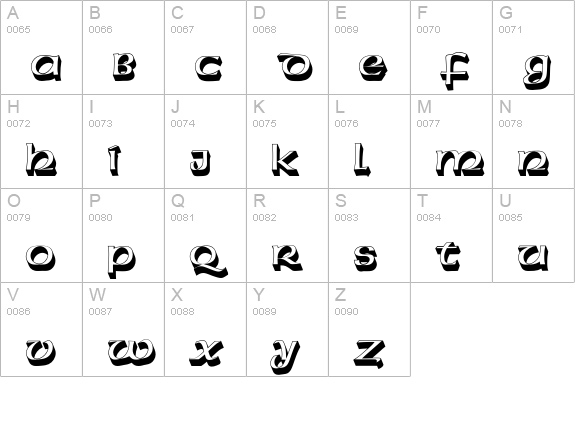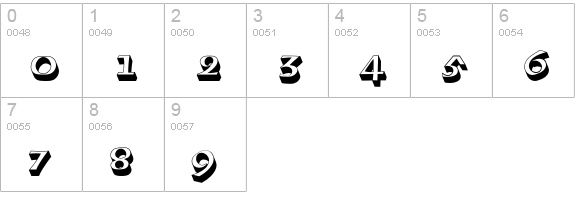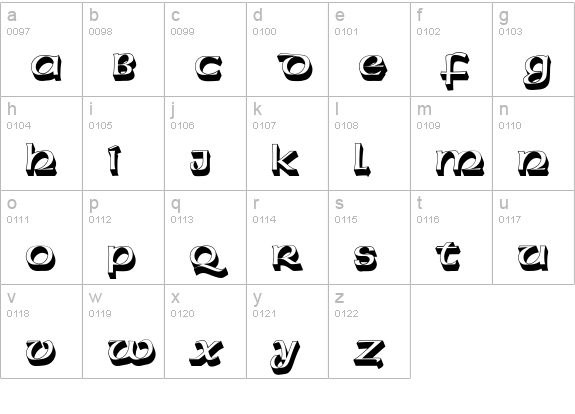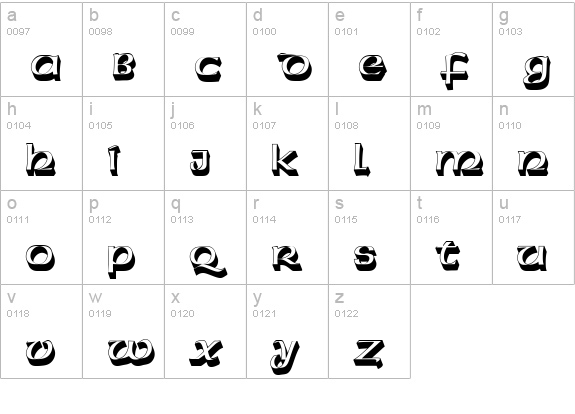
American Uncial D Sh1 Font Details
American Uncial D Sh1 font is a classic and elegant typeface that exudes a sense of tradition and sophistication. Its unique calligraphic style makes it perfect for projects that require a touch of old-world charm. The thick, rounded strokes of the letters give the font a bold and distinctive appearance, making it stand out in any design. What makes American Uncial D Sh1 font even more appealing is that it is available for free download at FontsMarket.com. This means that you can easily add this beautiful font to your collection without any cost, making it a valuable resource for designers, artists, and anyone looking to enhance their projects with a touch of timeless elegance. Whether you're working on invitations, greeting cards, posters, or any other creative project, American Uncial D Sh1 font is sure to add a touch of sophistication and style. Download it today and start creating stunning designs with this versatile and eye-catching typeface.